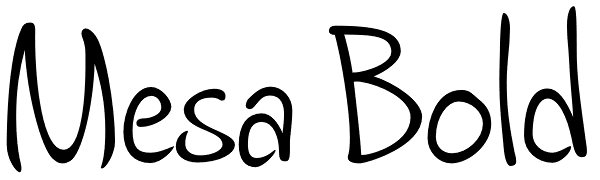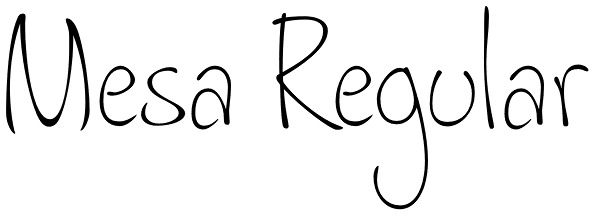
Mesa
Warm & casual, Mesa exudes a youthful energy through the varied and informal rhythms found only among the best of informal scripts. While visiting Font Bureau as an intern from Yale University during the summer of 1994, Jonathan Corum designed the...